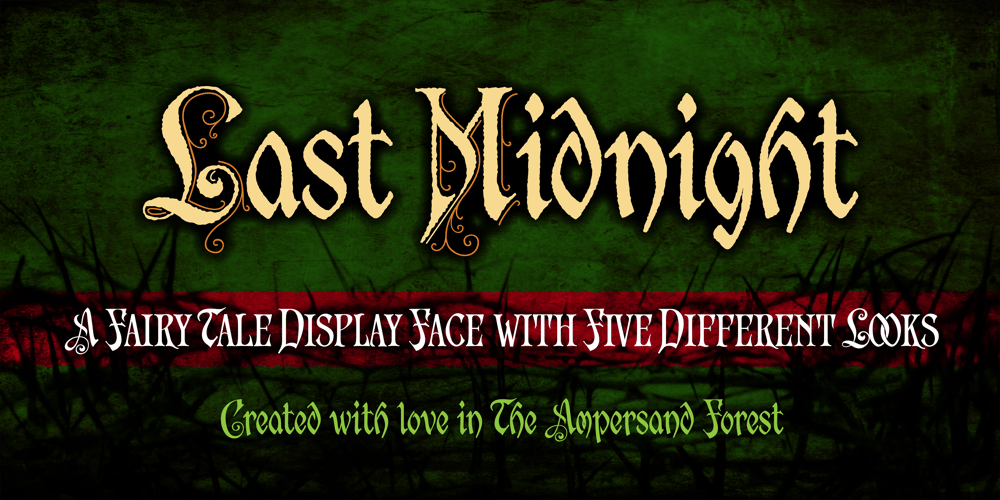
Last Midnight Font Family was designed by DC Scarpelli and published by The Ampersand Forest. Last Midnight contains 1 styles and family package options. Suggested by J.M.Bergling’s 1917 “New Romeo Initials, Last Midnight is a display face created in a distinctive pseudocalligraphic Belle Époque style that we’ve come to associate with beloved fairy tales.Rich in typographic goodies, with two additional stylistic sets and a host of standard ligatures, Last Midnight now even has a Roman small caps set in both smooth and rough varieties — great for all of your tale-telling, folkloric, swashbuckling, & spellcasting needs!Part of The Ampersand Forest’s Sondheim Series.